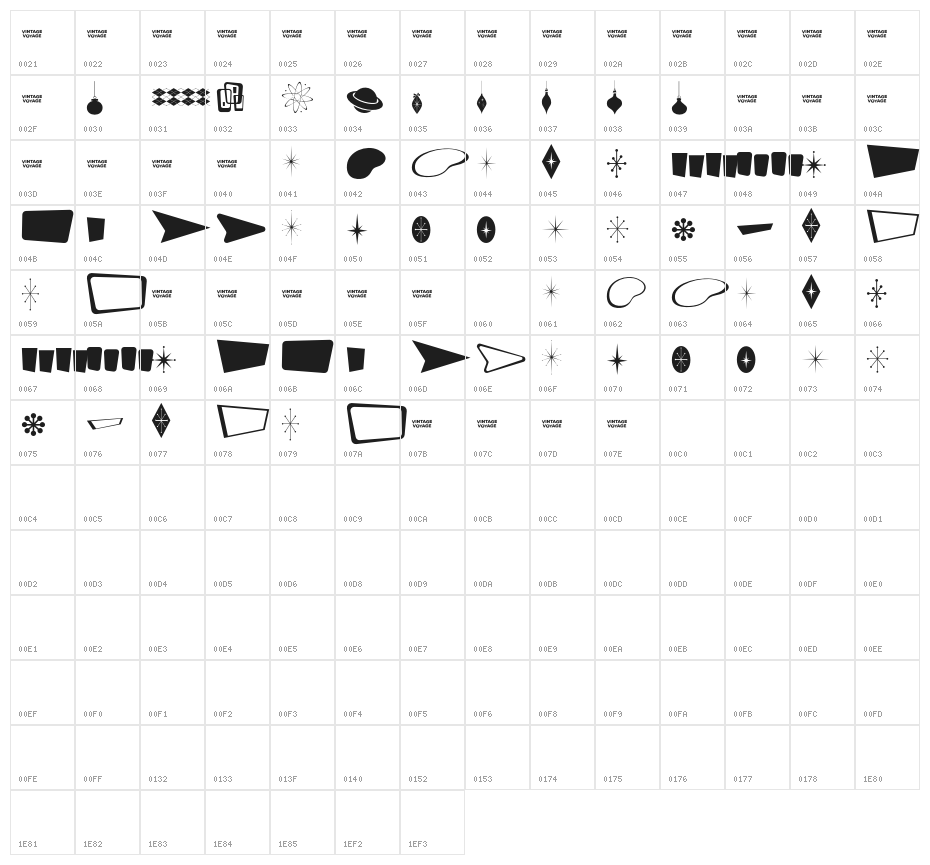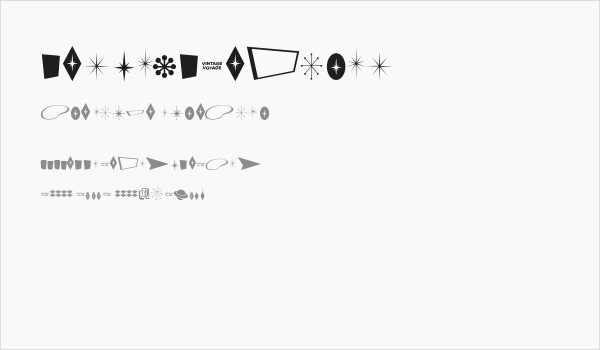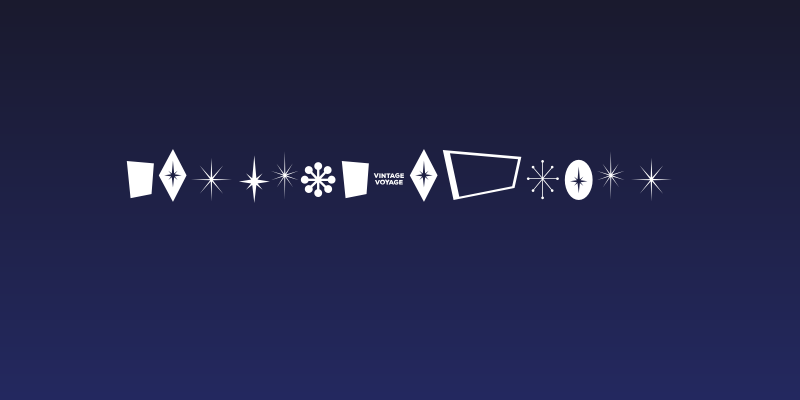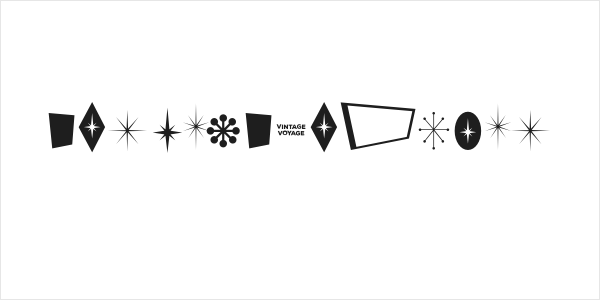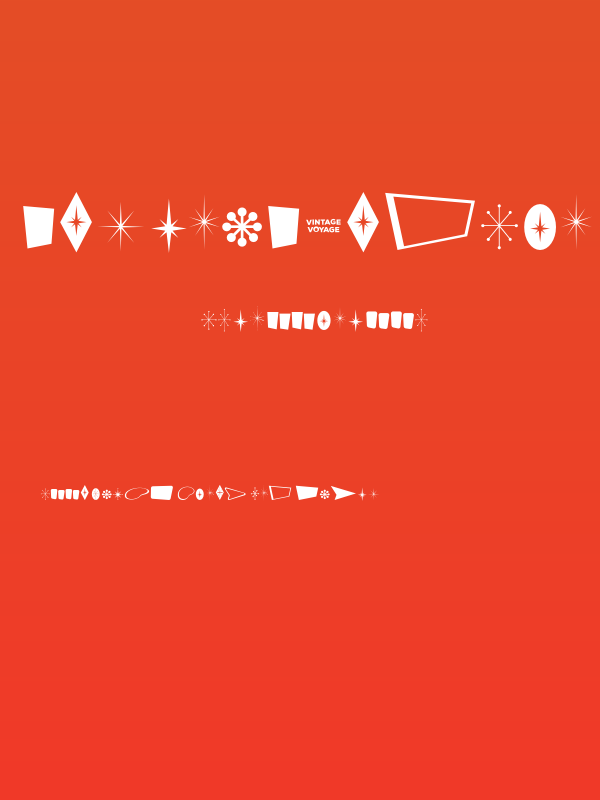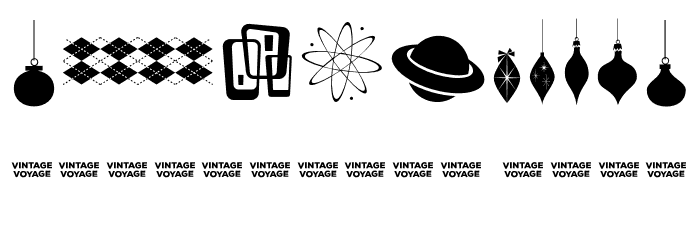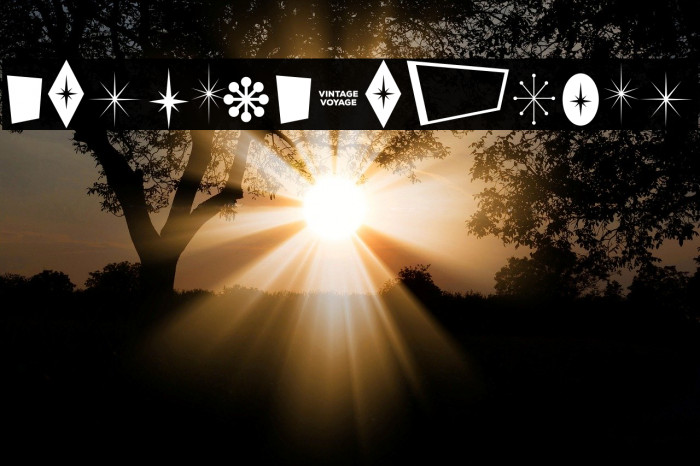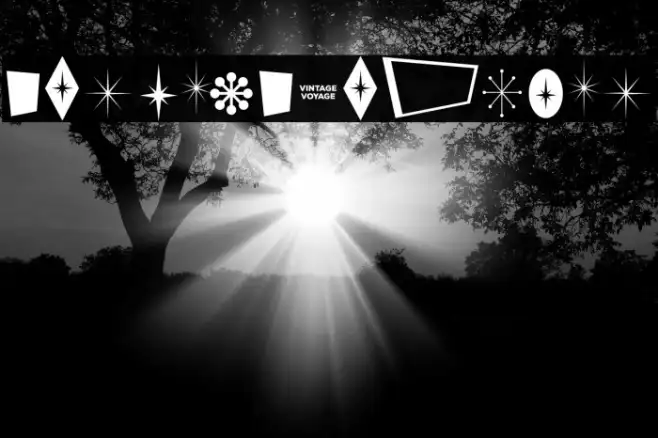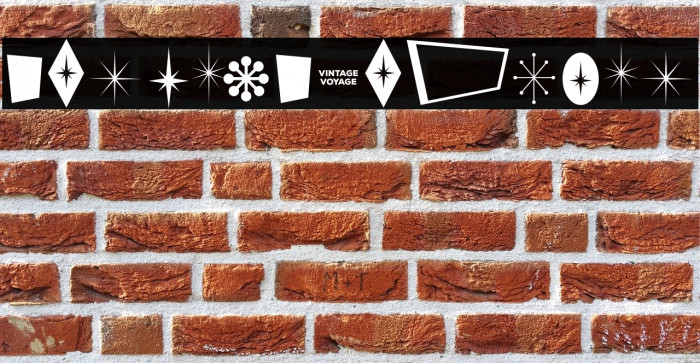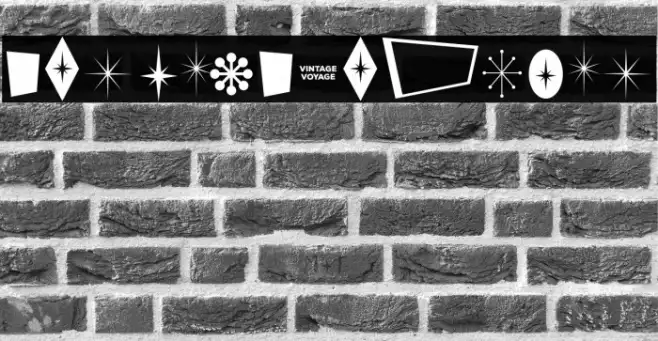
LesPaul-Extras Font
LesPaul-Extras Description
A collection of retro-inspired decorative glyphs and dingbats, featuring atomic-era motifs such as starbursts, geometric shapes, ornaments, planets, and mid-century modern patterns. The set includes both filled and outlined icons, as well as repeated 'VINTAGE VOYAGE' text blocks.
| Overall Style | Decorative, Vintage, Mid-century Modern |
| Use Case | Logos, Headlines, Decorative elements, Themed graphics |
| Proposed Projects | Retro posters, vintage branding, party invitations, scrapbook embellishments, themed decor, digital stickers. |